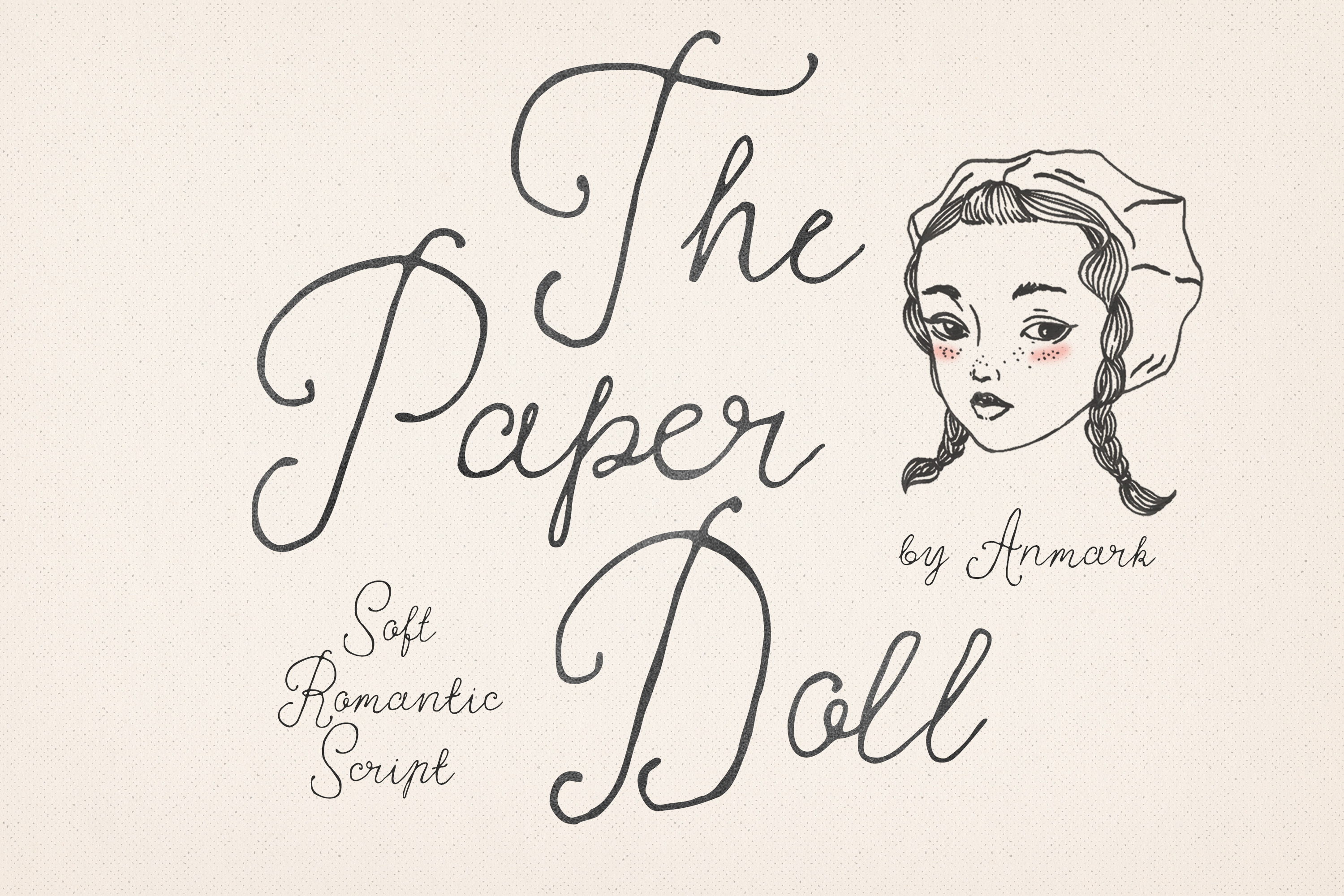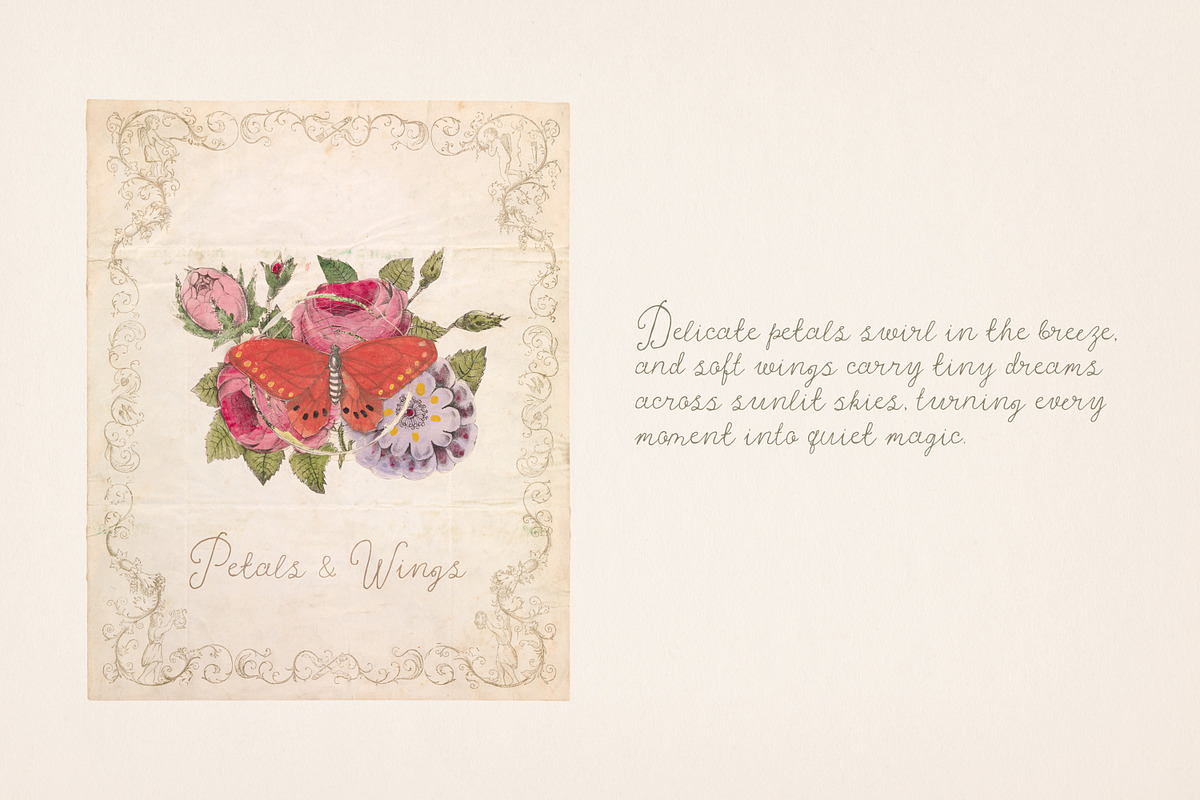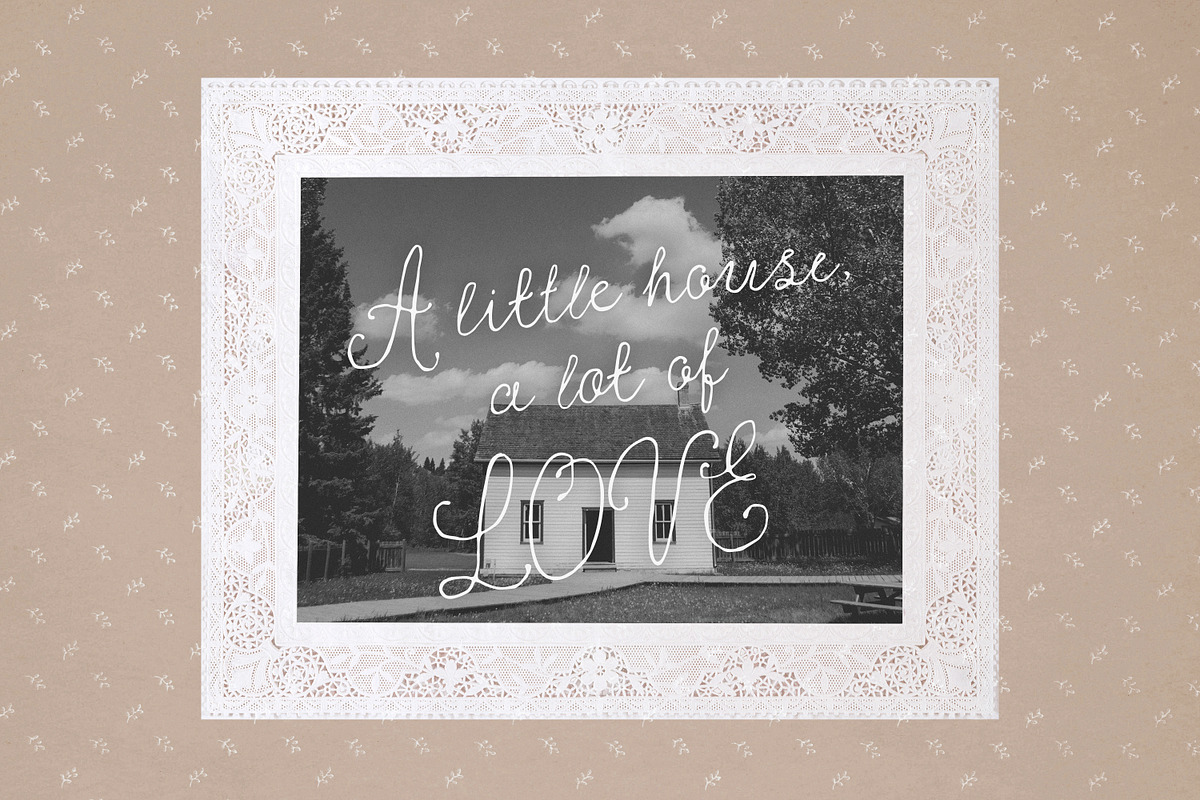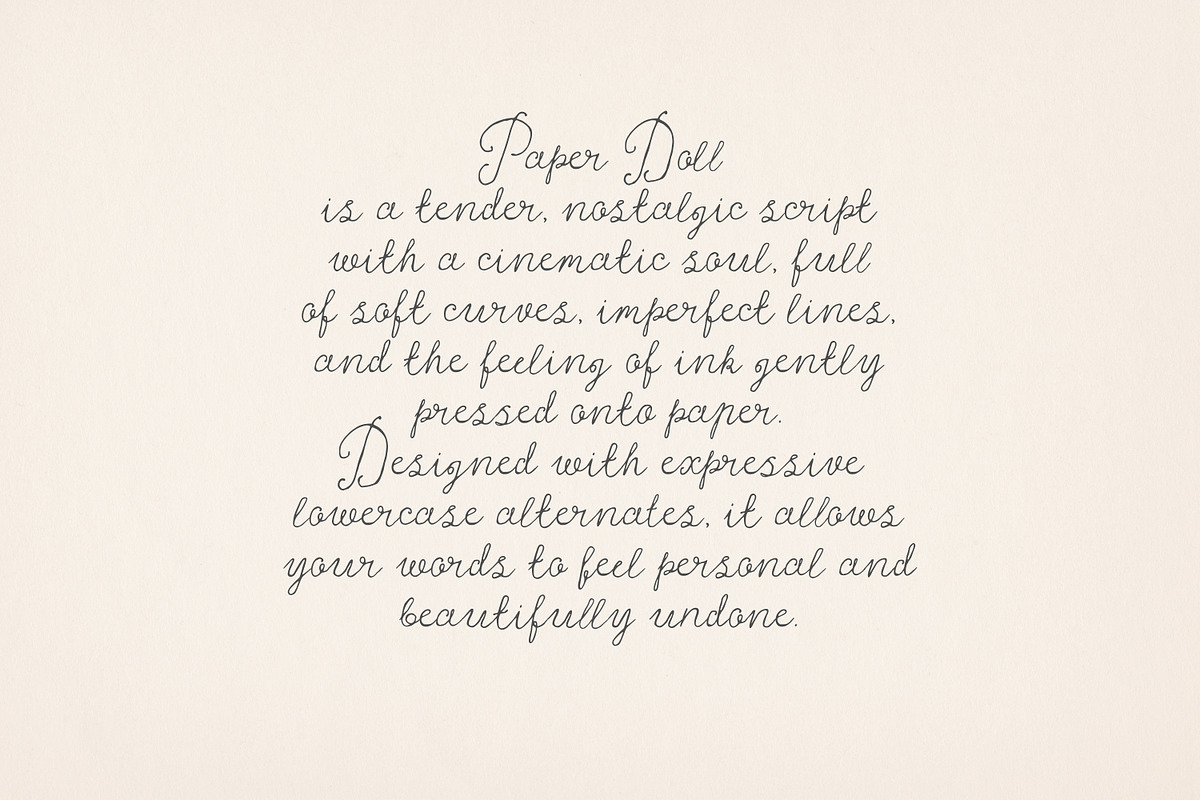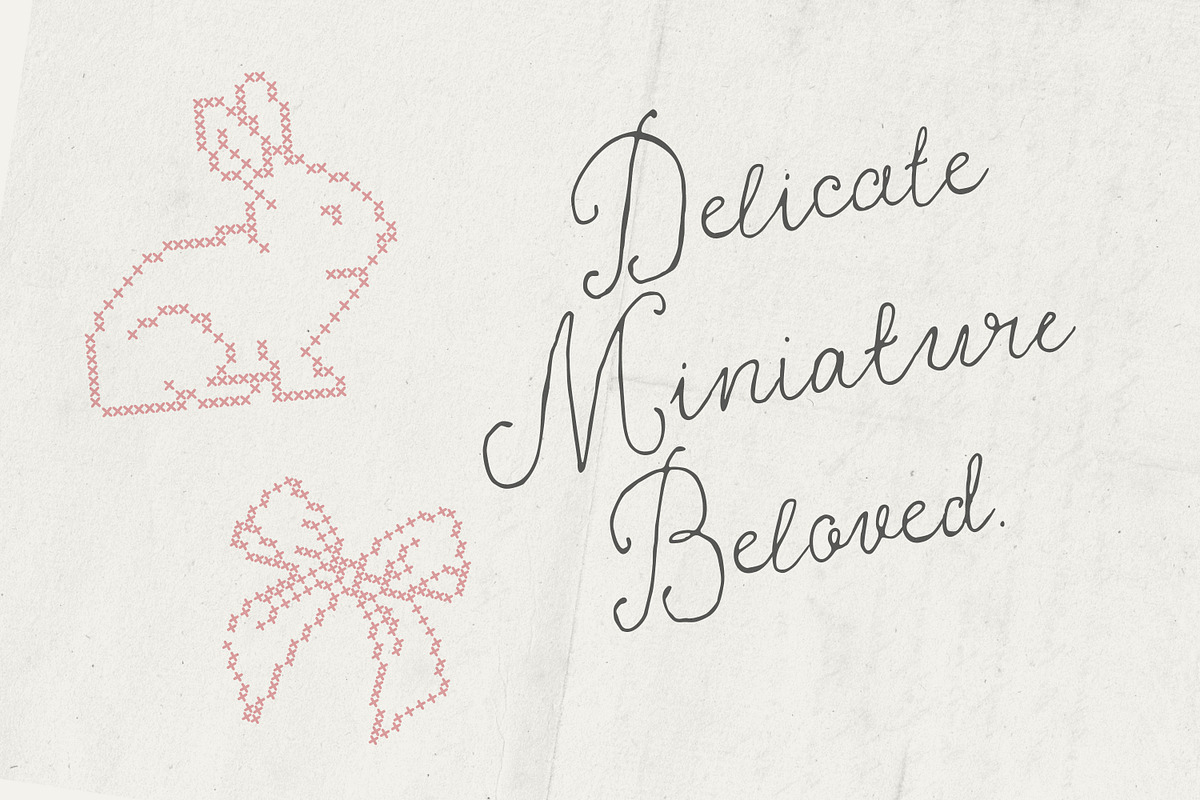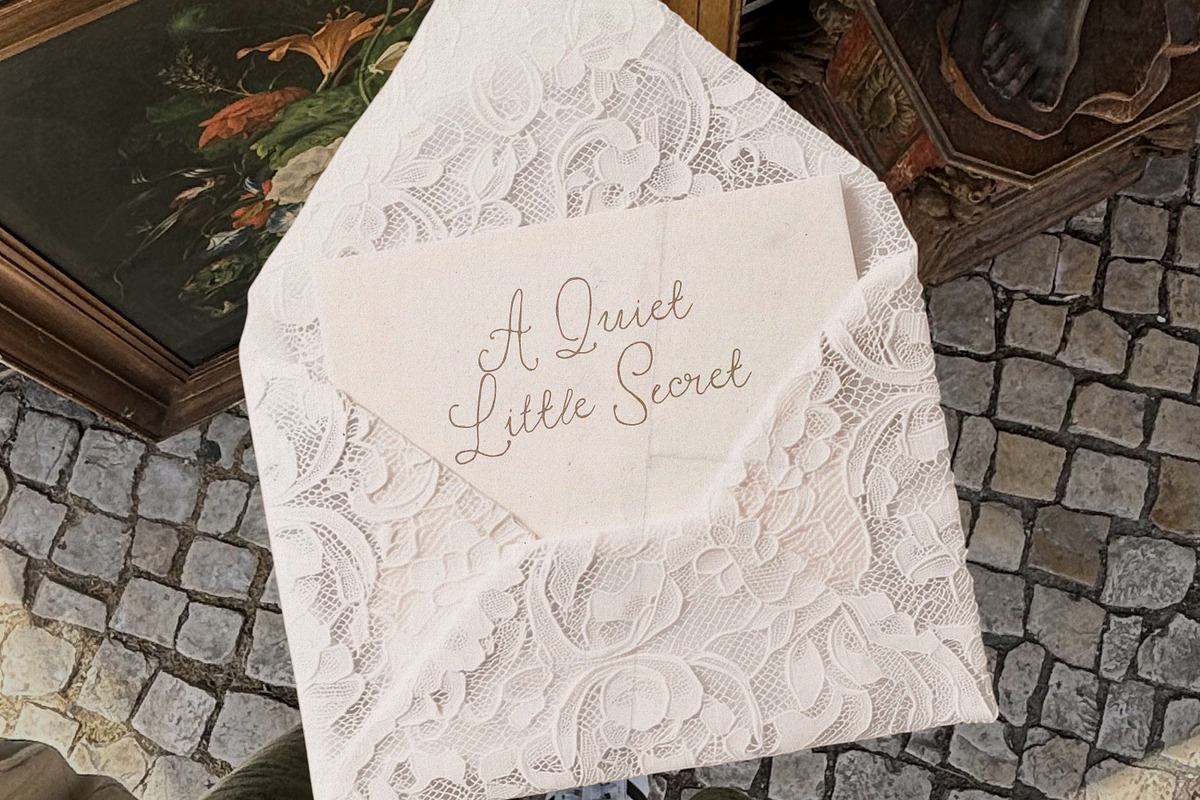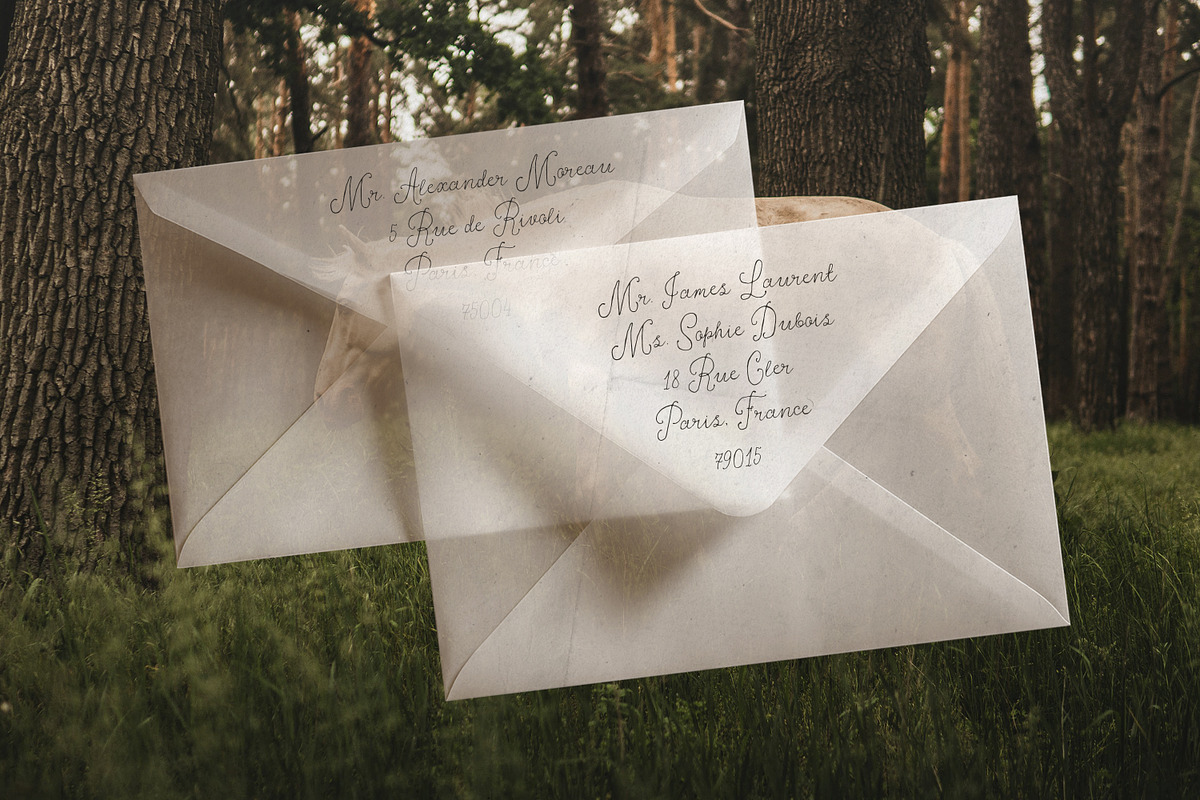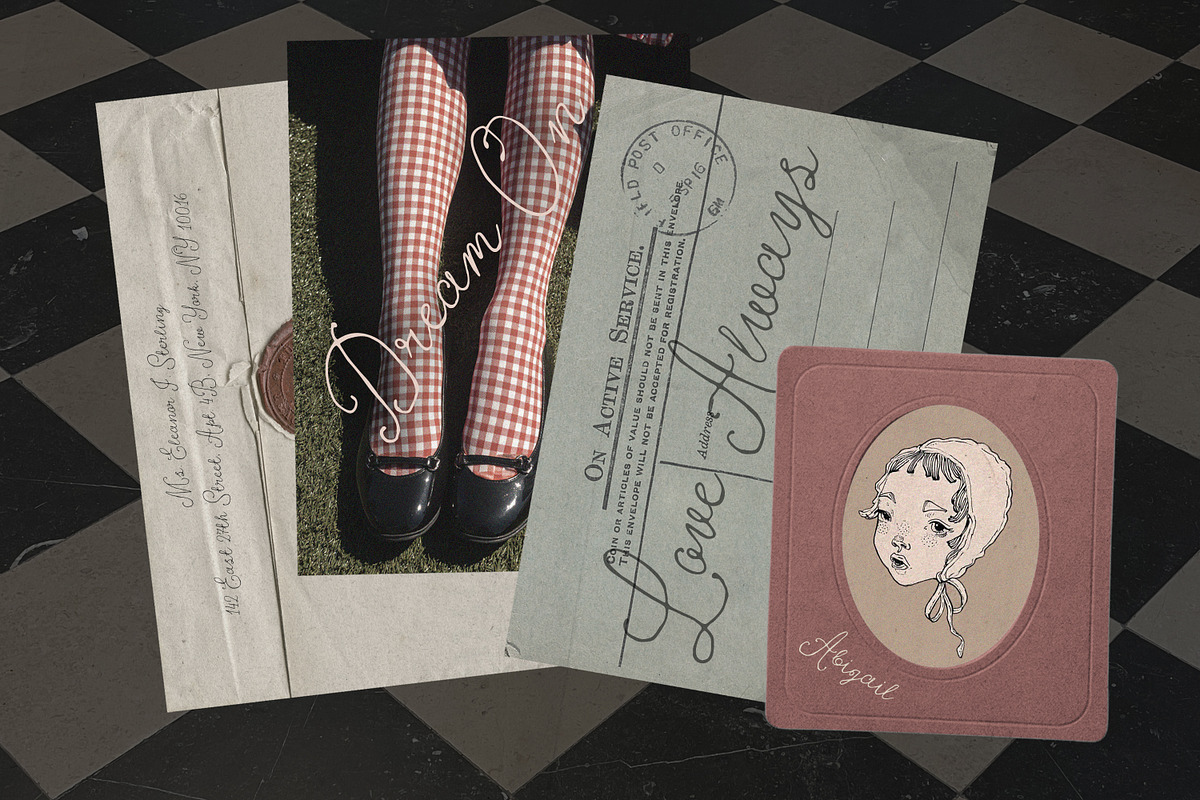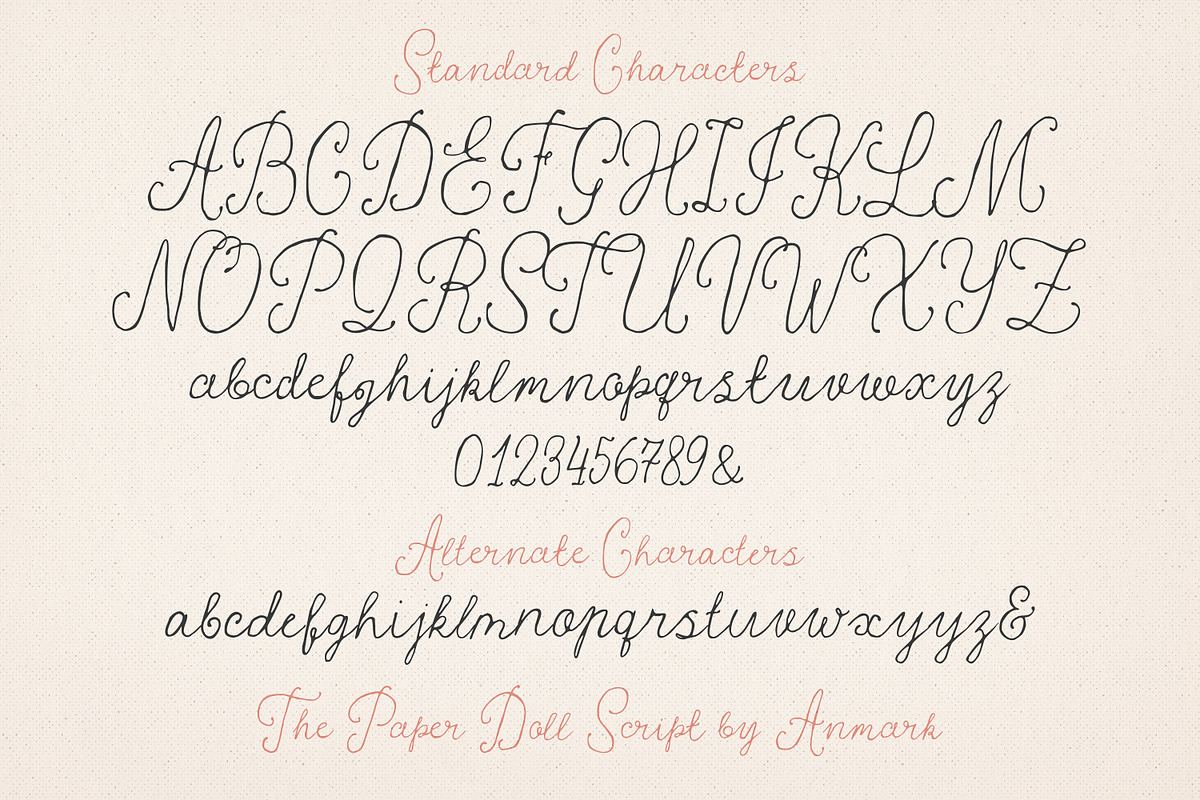
The Paper Doll is a delicate, nostalgic script inspired by vintage handwriting and storybook charm. Its soft, flowing lines carry a cinematic warmth and quiet intimacy. The font includes expressive lowercase alternates, giving each word a natural, hand-lettered feel.
Ideal for wedding stationery, romantic logos, boutique branding, book covers, packaging, editorial design, greeting cards, invitations, and personal projects that benefit from an elegant, timeless script.